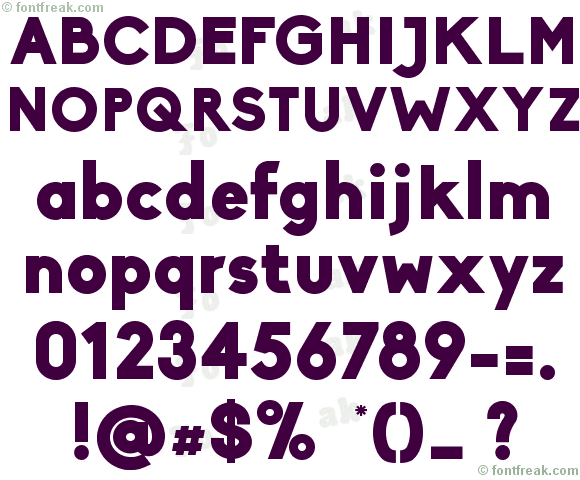
Biko
About Biko
Biko is a striking sans-serif typeface designed by Marco Ugolini in 2013 using FontLab Studio. This font embodies a modern aesthetic with its clean lines and balanced proportions, making it a versatile choice for various design projects. The typeface features a consistent stroke weight and minimal contrast, contributing to its legibility and contemporary charm. Its geometric forms and open spacing allow for easy readability, while its bold and light variations add depth and versatility to any layout.
Biko is ideal for a wide range of applications. It works beautifully for branding materials, providing a fresh and approachable look for logos and business cards. Additionally, its clarity makes it a superb choice for restaurant menus, allowing patrons to easily read dish descriptions. Graphic designers will find Biko perfect for creating eye-catching promotional posters, while content creators can utilize this font for engaging social media graphics or website headings. The font's clean design also lends itself well to editorial layouts, making it suitable for magazines or brochures.
What sets Biko apart is its seamless blend of modernity and functionality. The font’s straightforward yet stylish design ensures that it captures attention while maintaining readability across various mediums. Whether you are looking to make a statement or simply enhance your content's visual appeal, the Biko font free download provides an excellent solution for your typography needs.